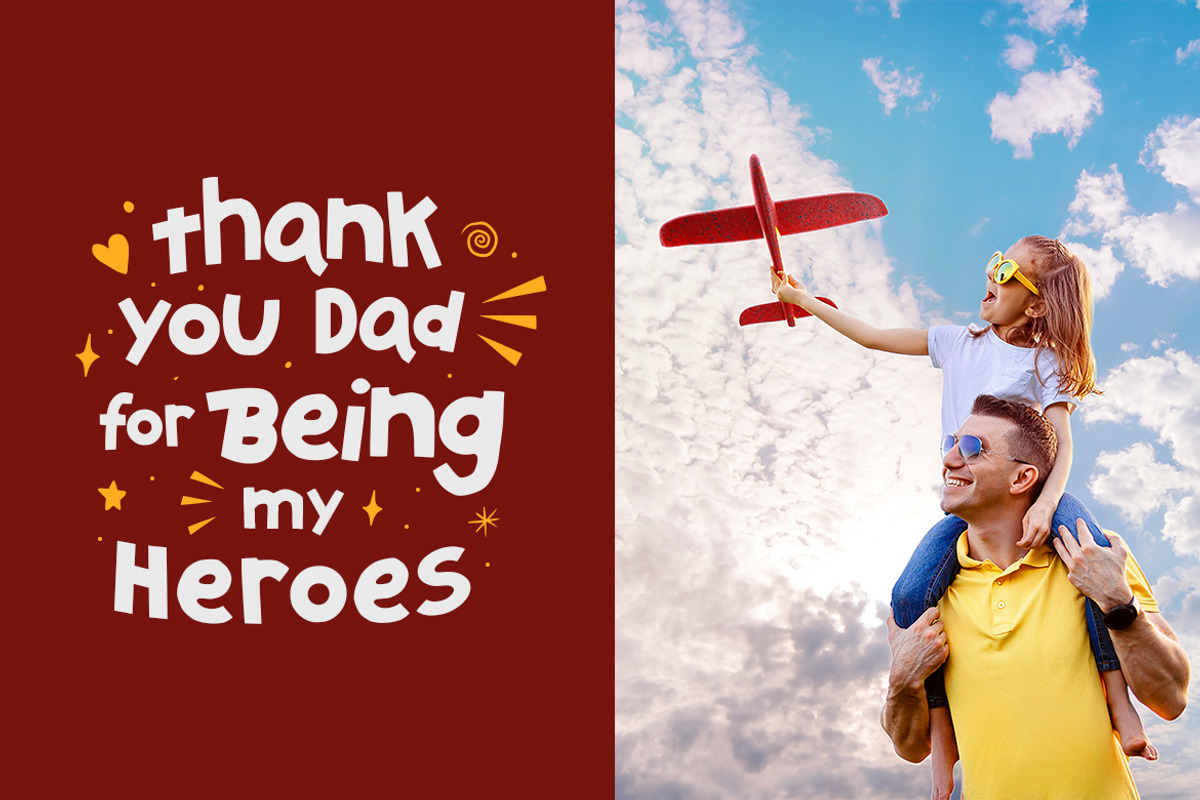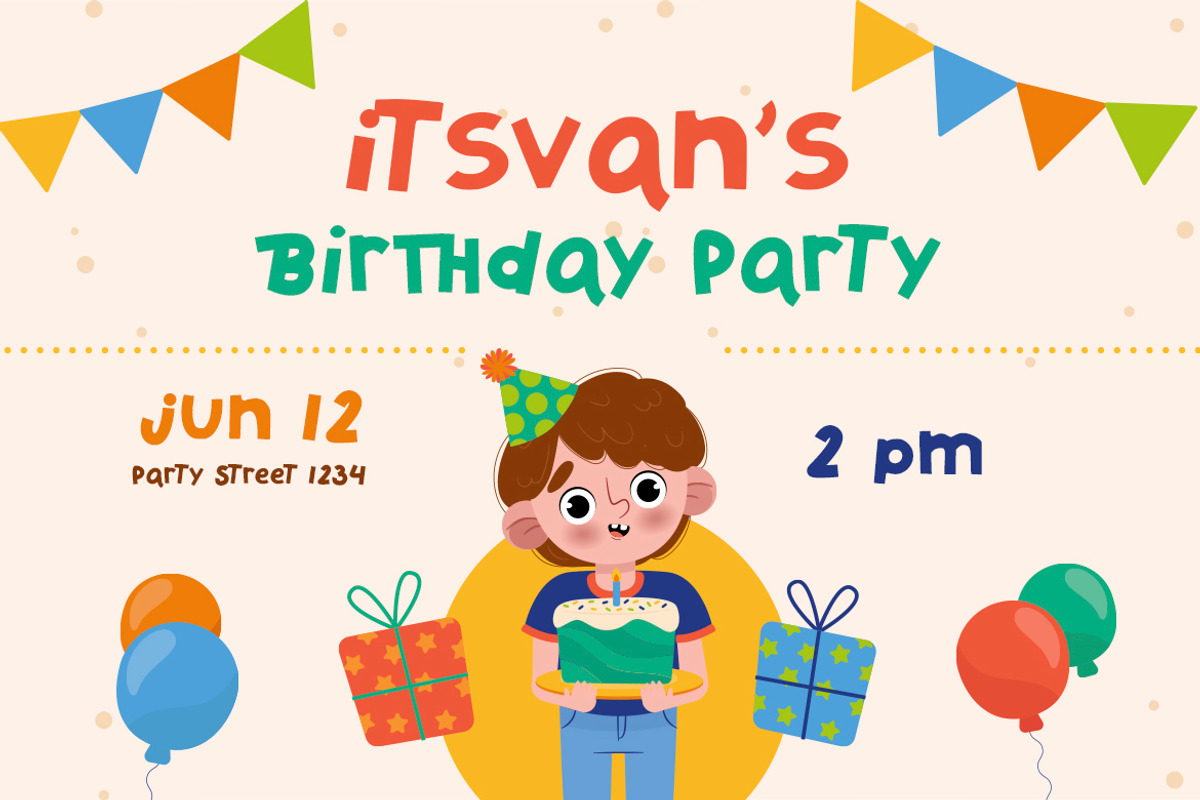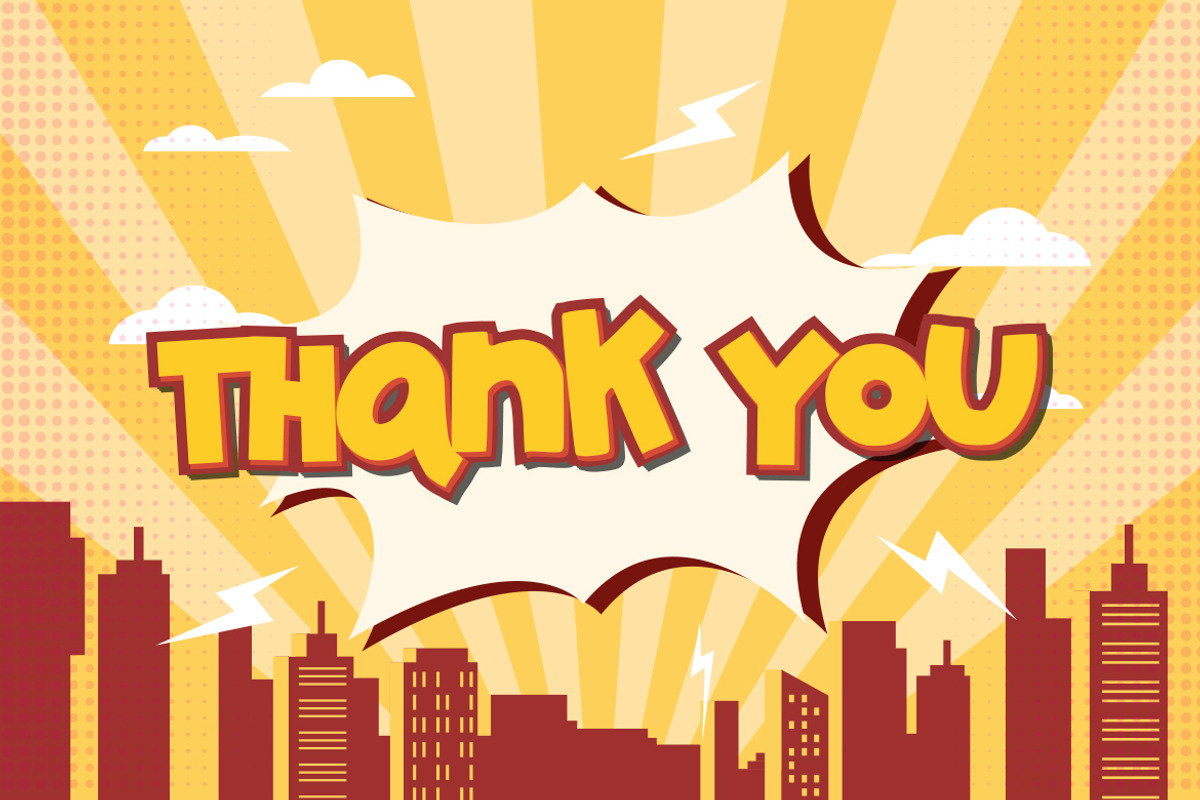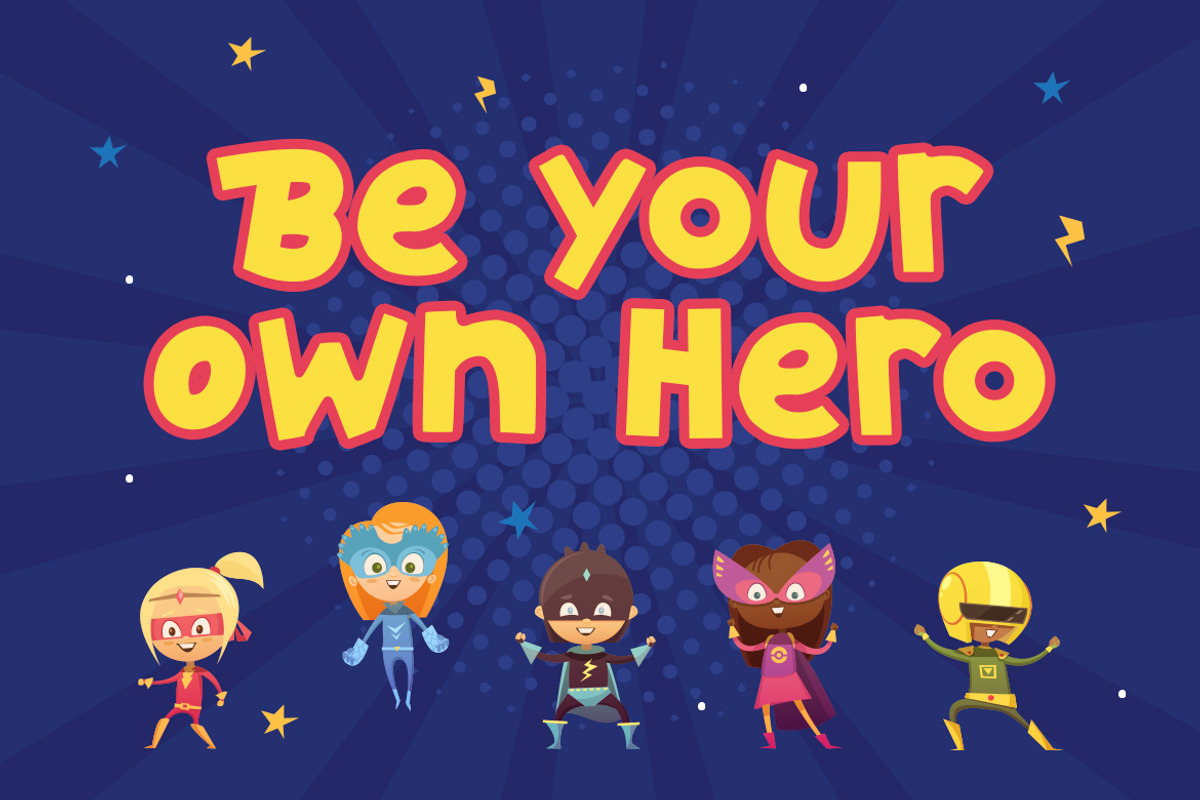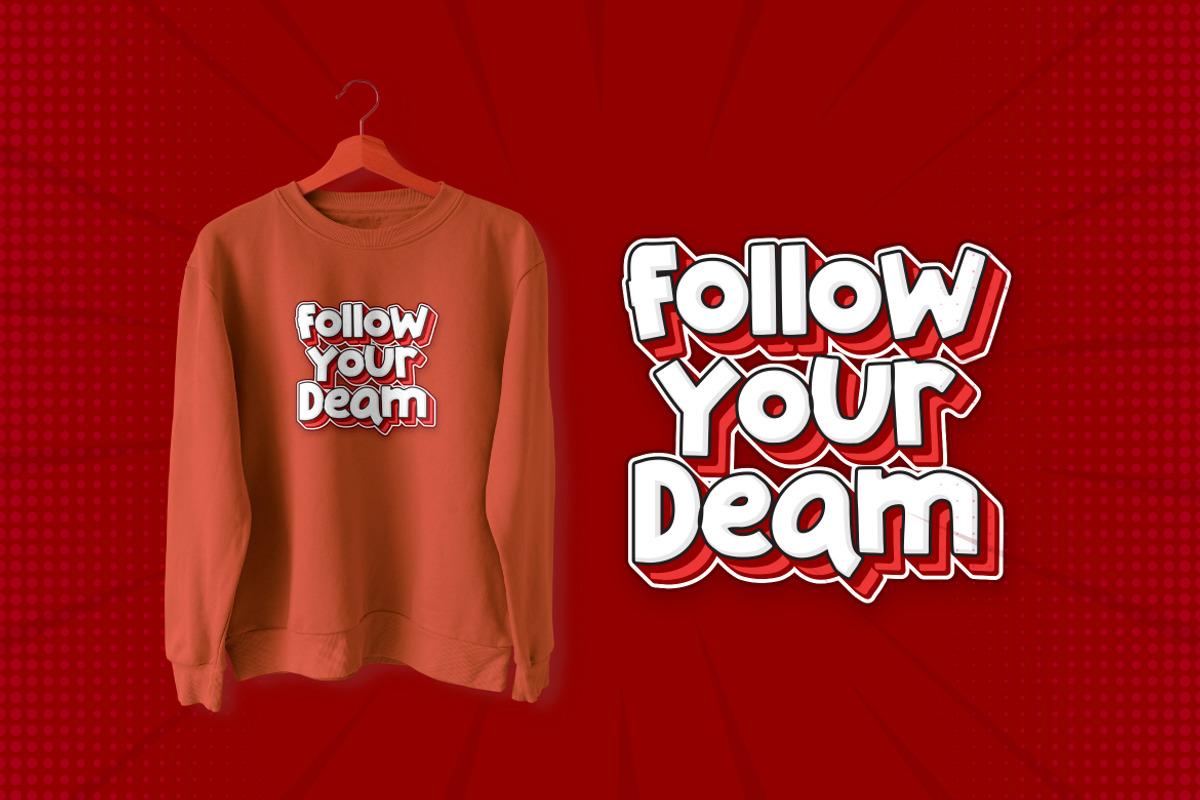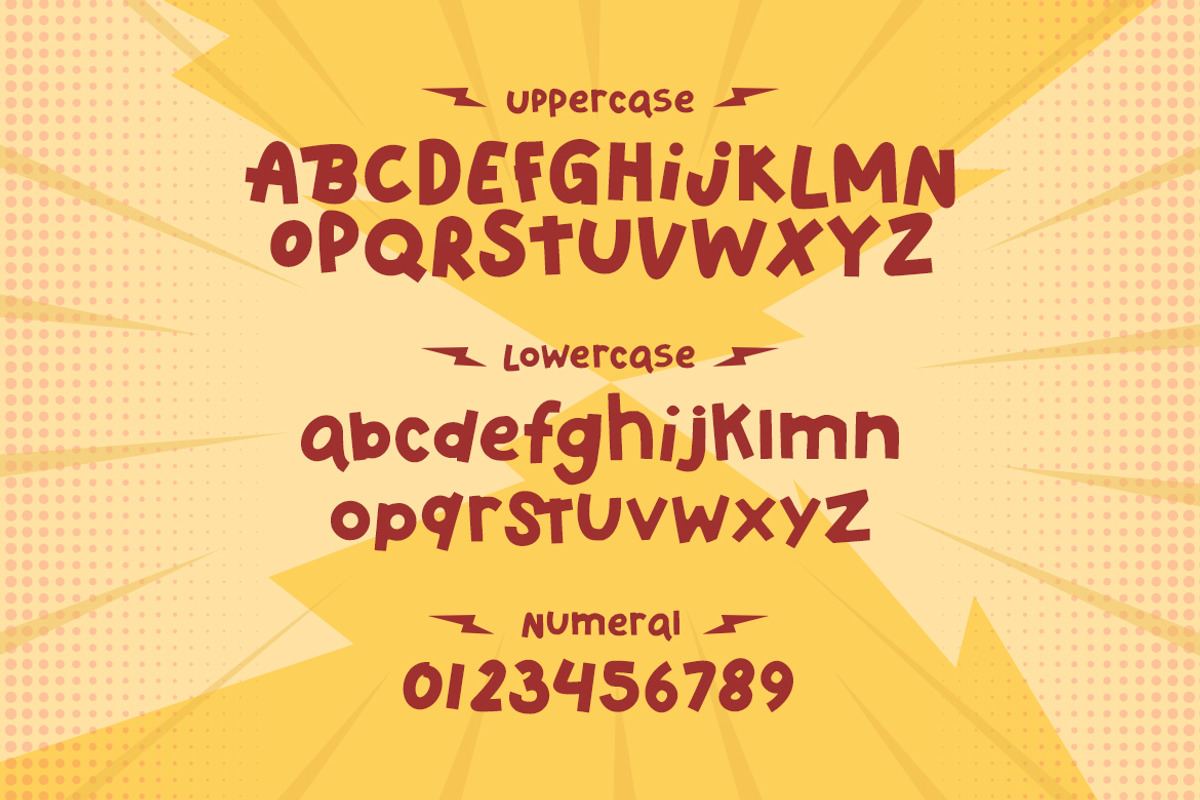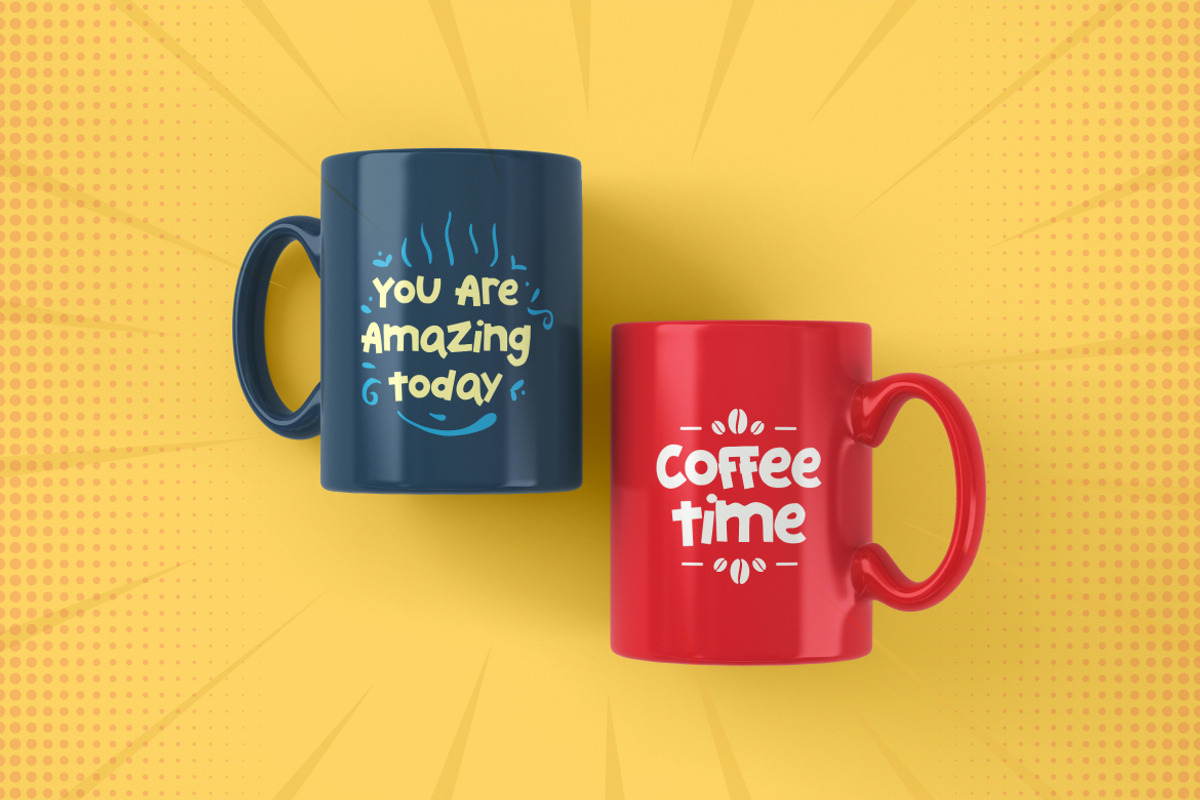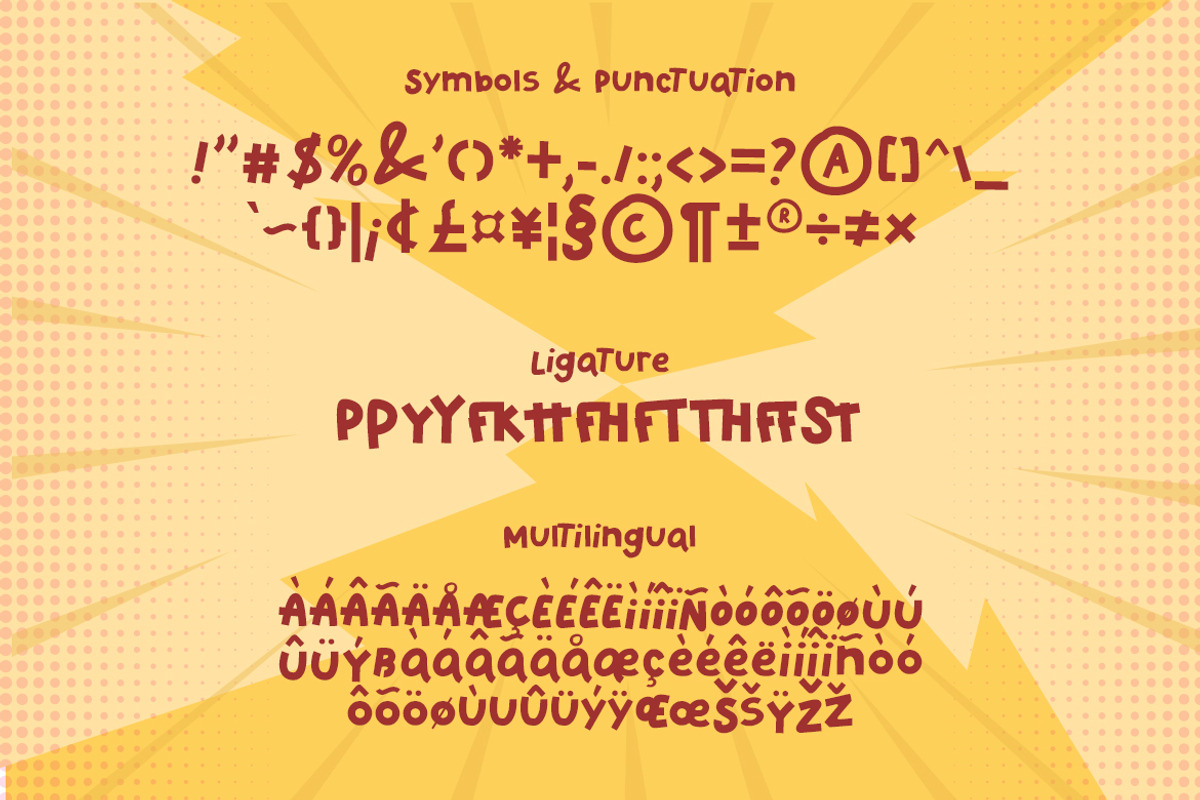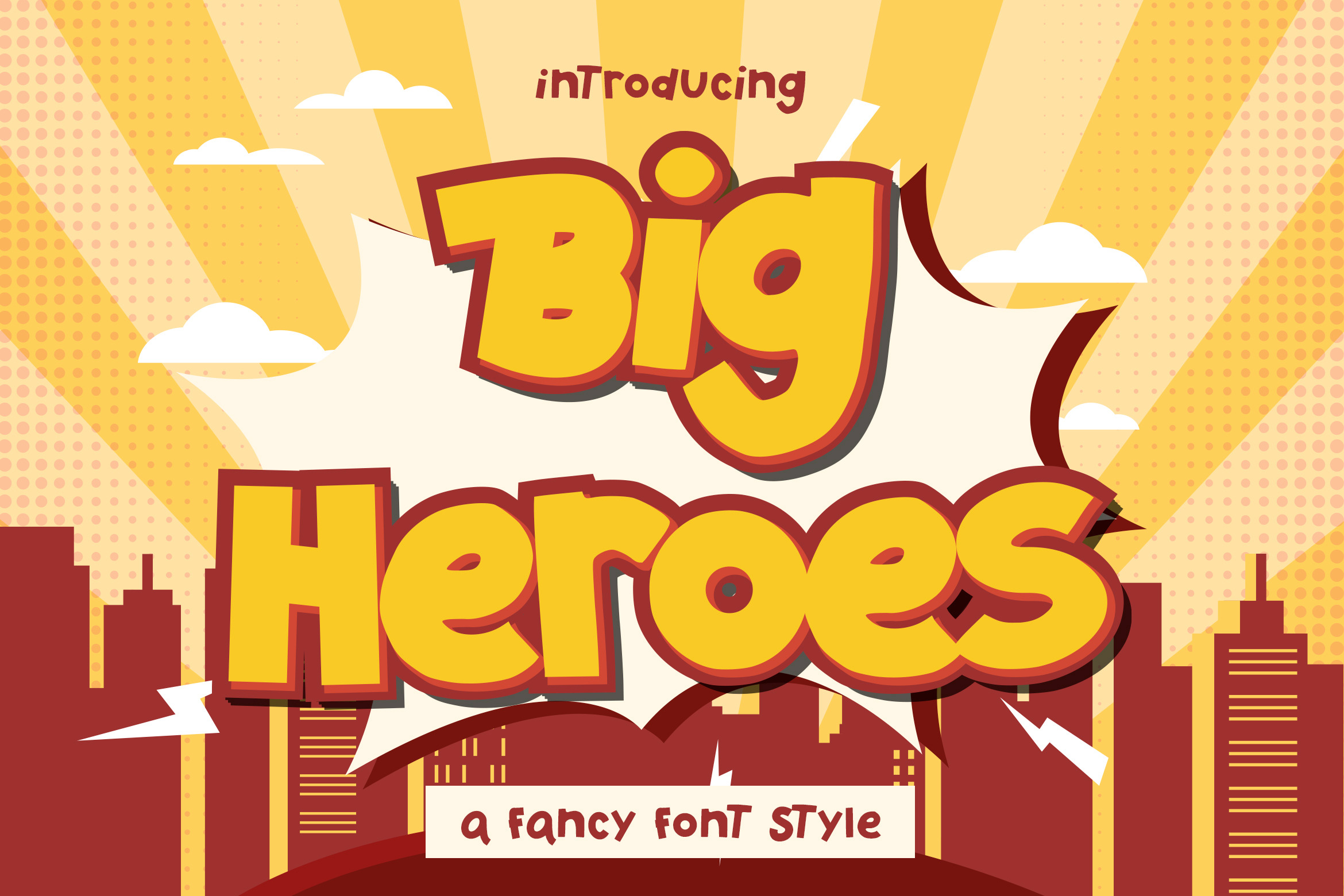
Big Heroes - Fancy Font Style
Big Heroes is playful font which puts a smile on your projects and will inspire you to create something fun and memorable. It is perfect for headings, flyer, greeting cards, product packaging, book cover, printed quotes, logotype, apparel design, album covers, etc
- Symbols & Punctuation
- Numeral